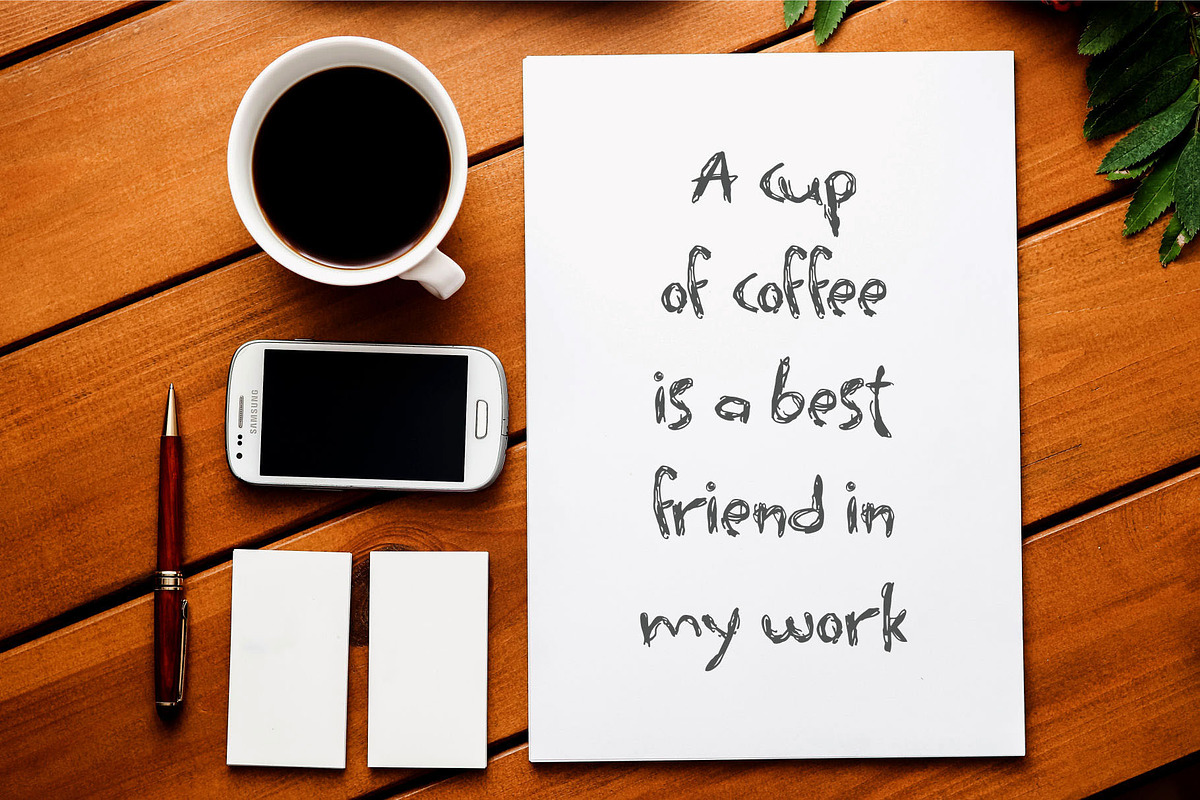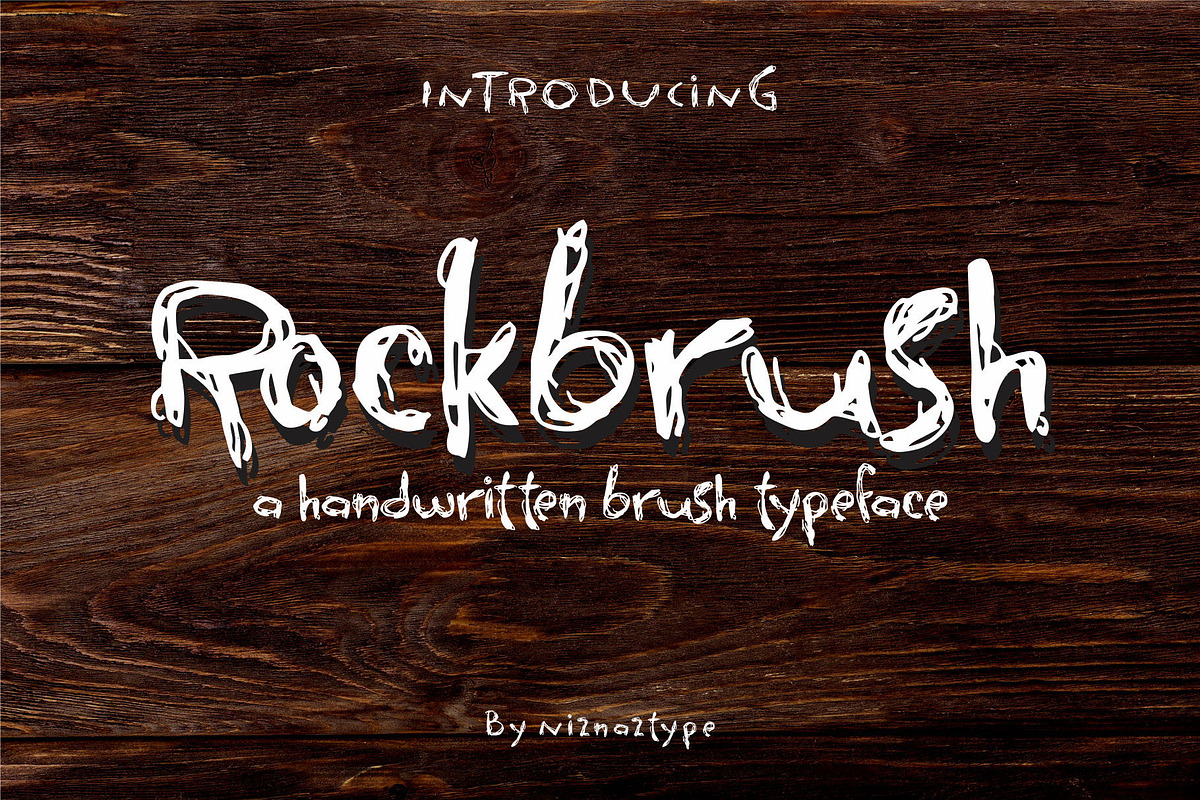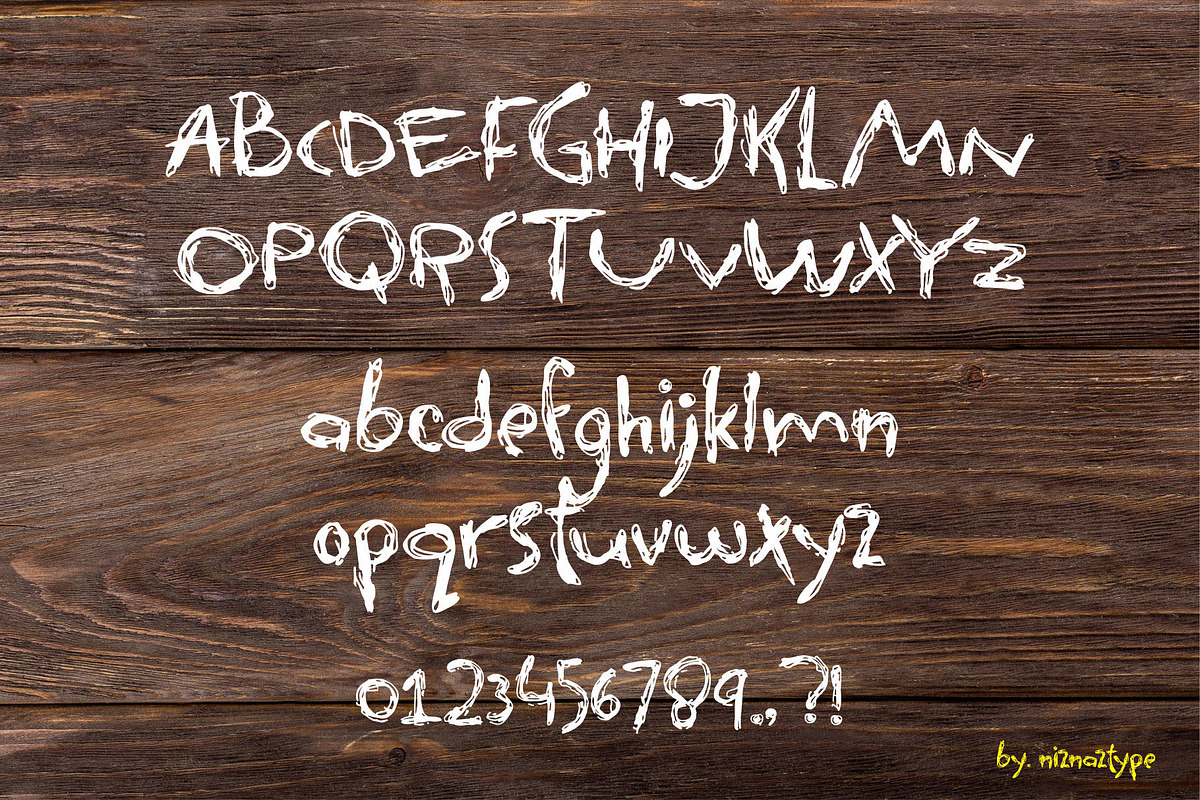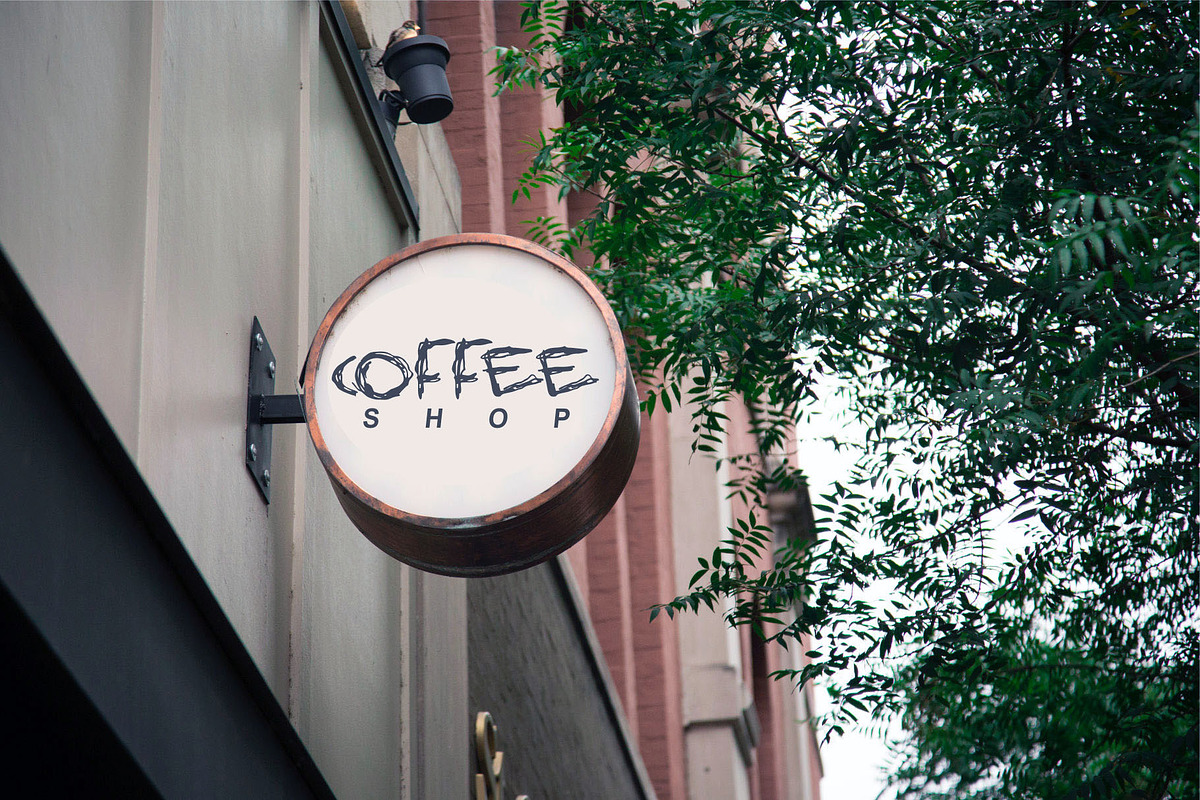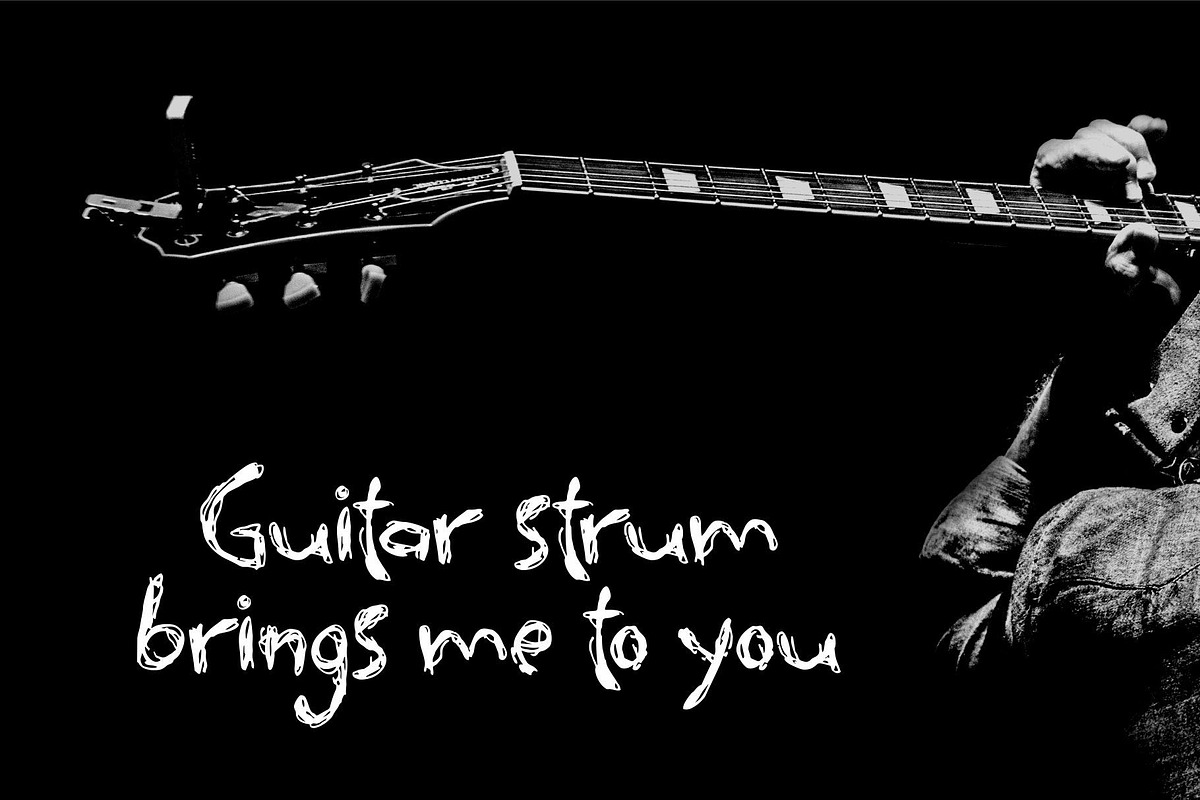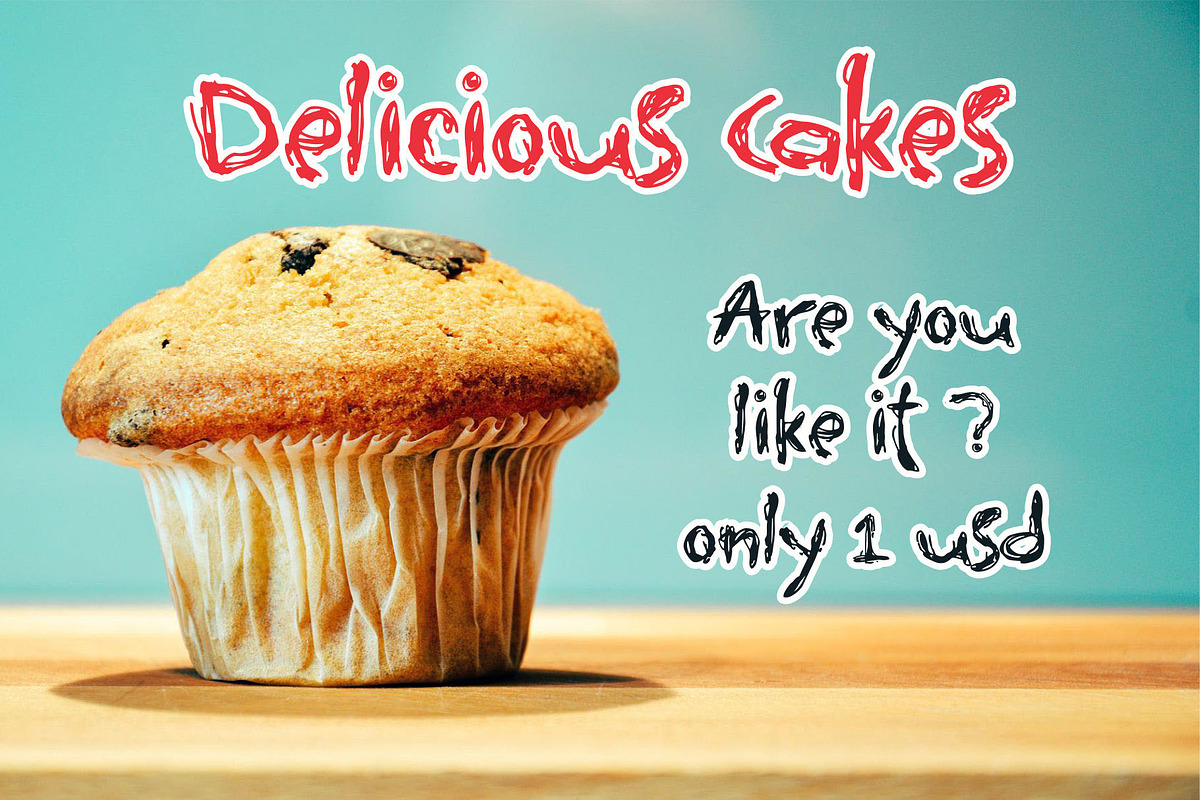
Rockbrush - A Cute Brush Font
Introducing a handwritten brush font. Rockbrush typeface. This font created by hand writing style. Suitable for headline, poster, tittle, advertisement, t-shirt and others. Graphic design themes like gothic, blackletter, fine art, painting, movie tittle, children concept also are very comfortable to use Rockbrush font. Rockbrush content of uppercase, lowercase, numeral and punctuation There are three formats, TTF OTF and WOFF Enjoy it with my font product. Thanks a lot